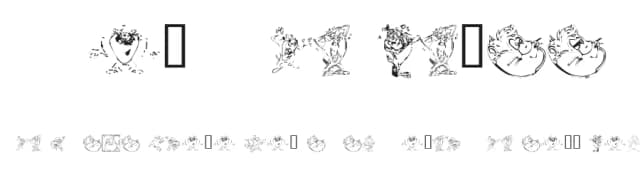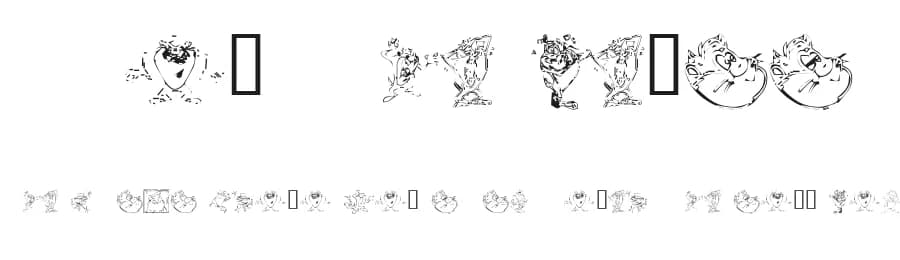
Taz the Devil Font is a versatile dingbats font that works for both headings and body text. Pair it with a contrasting sans-serif or serif font to add visual interest and a clear distinction between titles and body copy.
Taz the Devil Font
by Perry Mason
Taz the Devil Font is a dingbats typeface by Perry Mason, ideal for logos, invitations, branding, and creative projects.